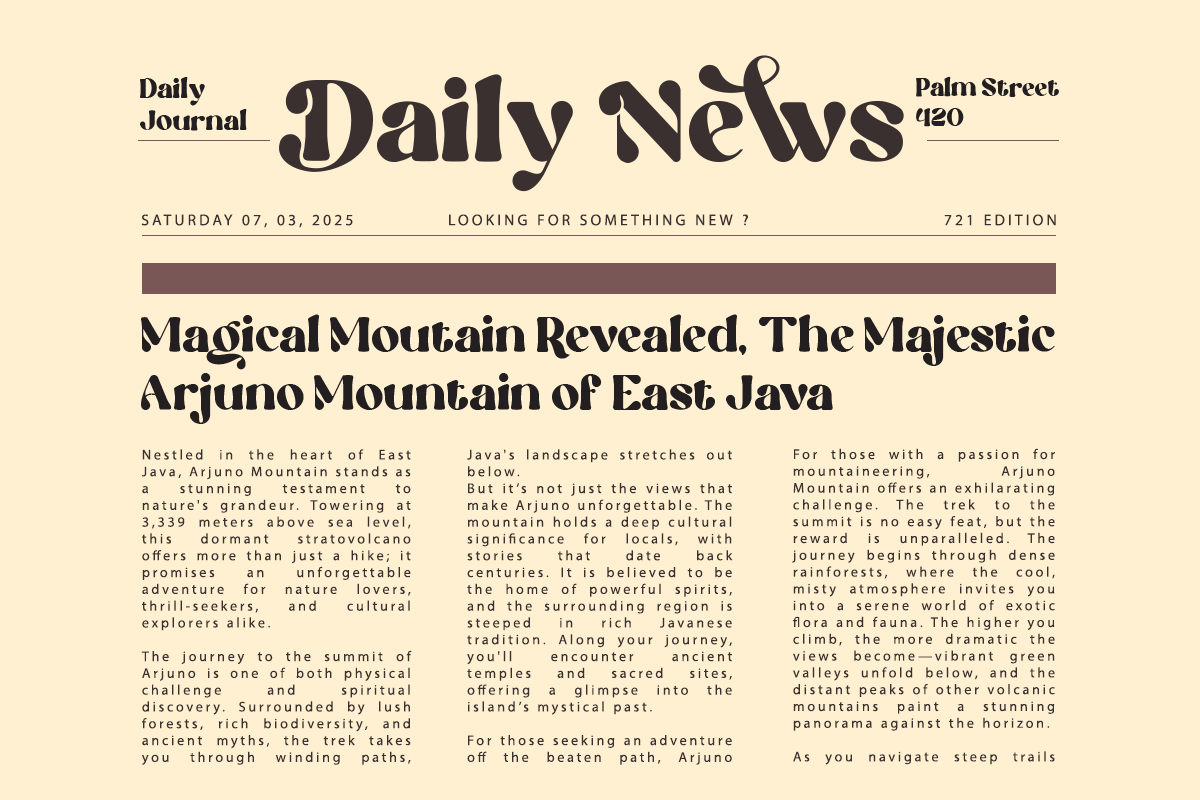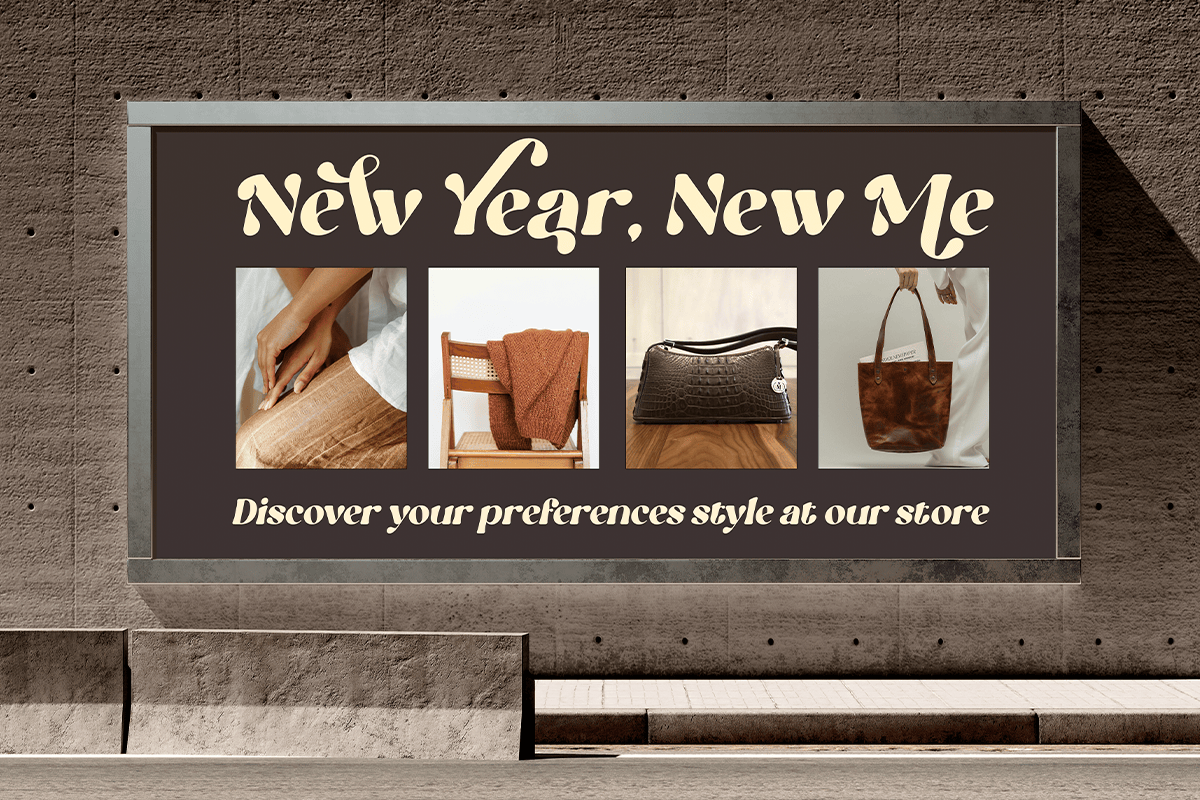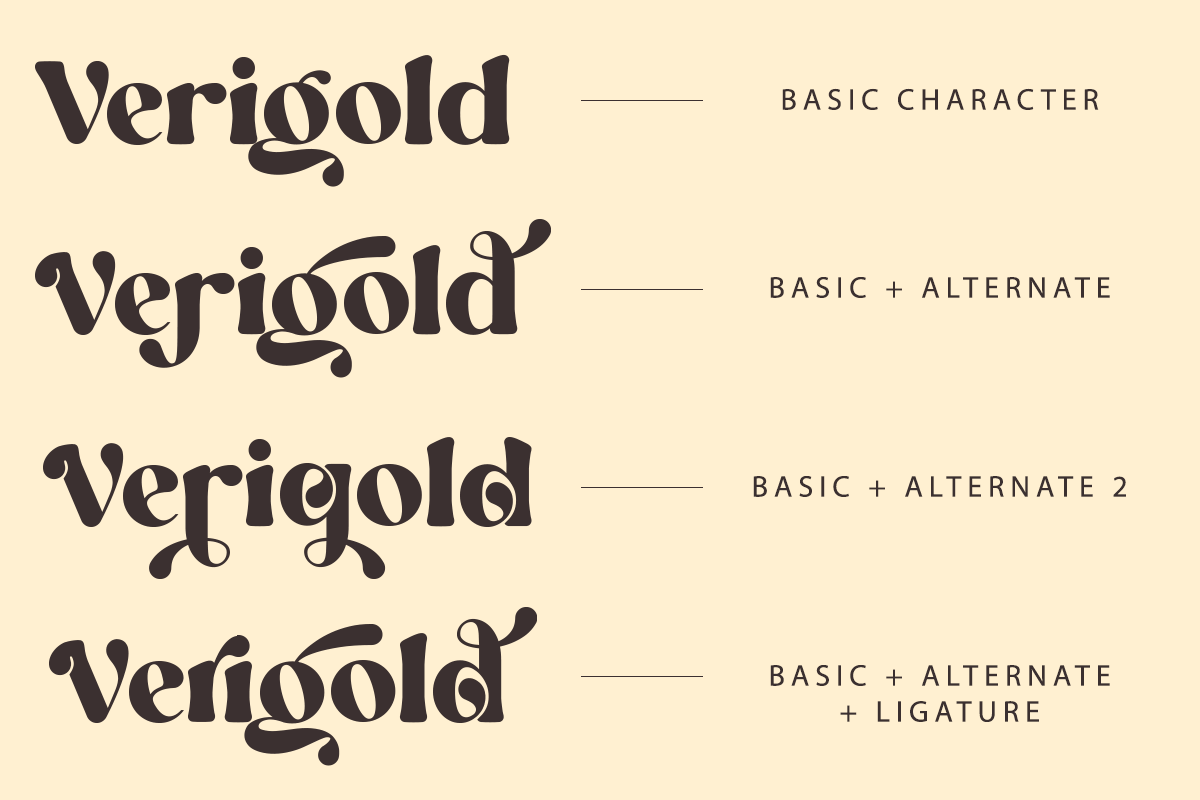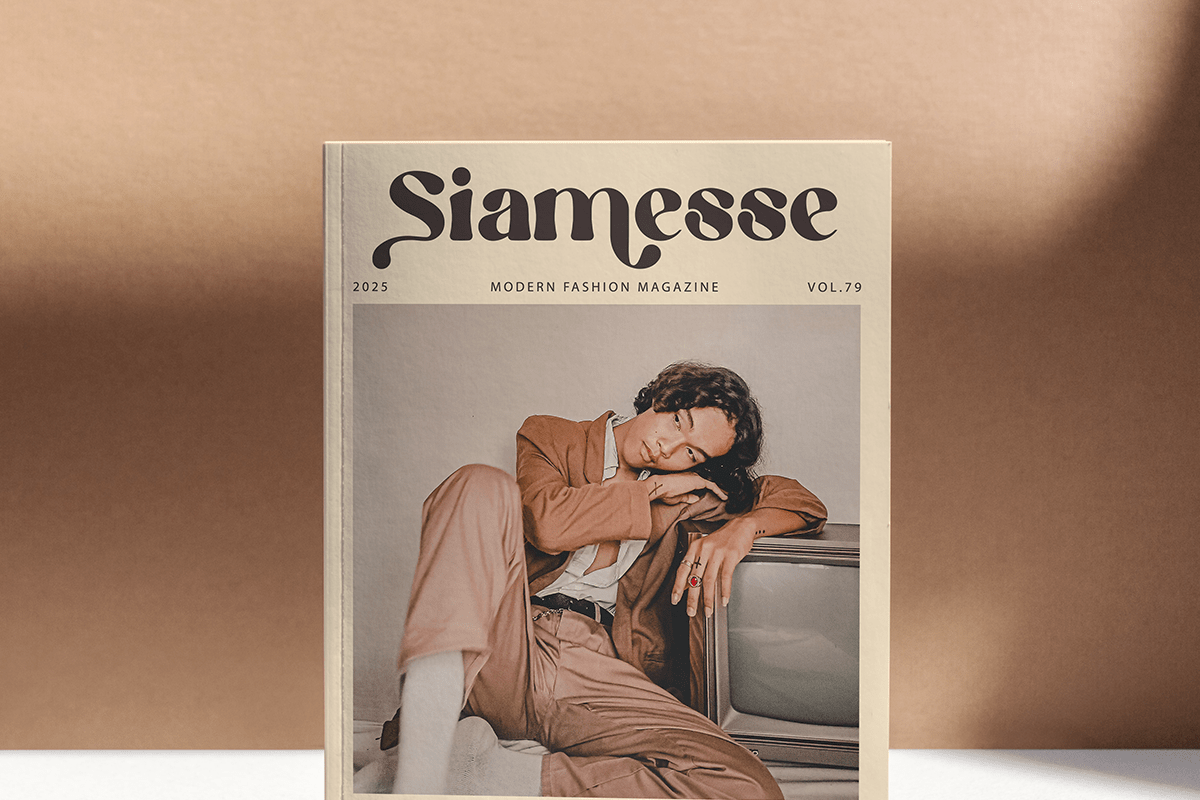
Praline – Modern Retro Serif
Praline is a modern retro serif typeface that blends timeless vintage elegance with expressive decorative details. Featuring beautifully crafted alternates, distinctive ligatures, and soft retro-inspired curves, Praline creates sophisticated typography that feels both nostalgic and contemporary. Its unique personality makes it an excellent choice for premium branding, editorial design, packaging, fashion campaigns, and luxury visual identities that seek a memorable and artistic impression.
Designed for versatility, Praline shines across logos, magazine layouts, product packaging, café branding, restaurant menus, cosmetic labels, book covers, wedding stationery, social media graphics, apparel, posters, and creative advertising. The combination of classic serif foundations with stylish alternate characters allows designers to build elegant compositions with effortless charm. Complete multilingual support, punctuation, numbers, and decorative alternates provide everything needed for professional creative projects.
Whether you’re creating branding for boutique businesses, artisan products, beauty brands, coffee shops, lifestyle magazines, luxury fashion labels, or handcrafted goods, Praline delivers warmth, authenticity, and refined character. If you’re searching for a serif typeface that combines modern usability with vintage-inspired elegance, Praline is the perfect font to elevate your next design.
– Stylistic alternates
– Uppercase, Lowercase & Ligatures